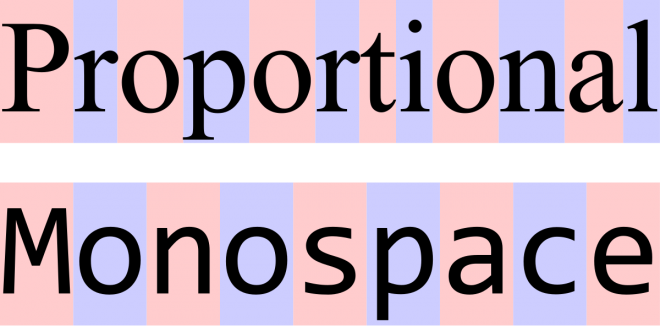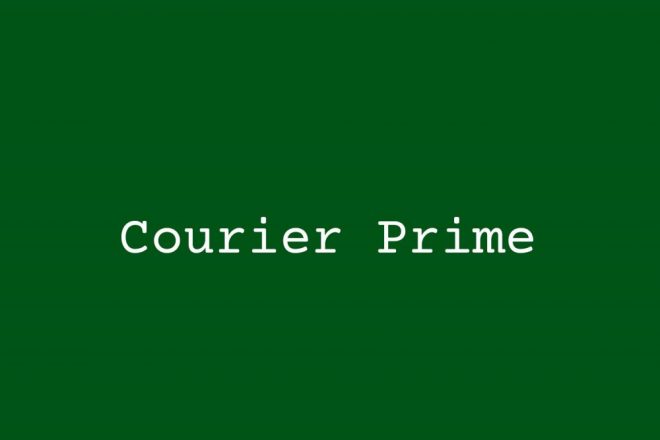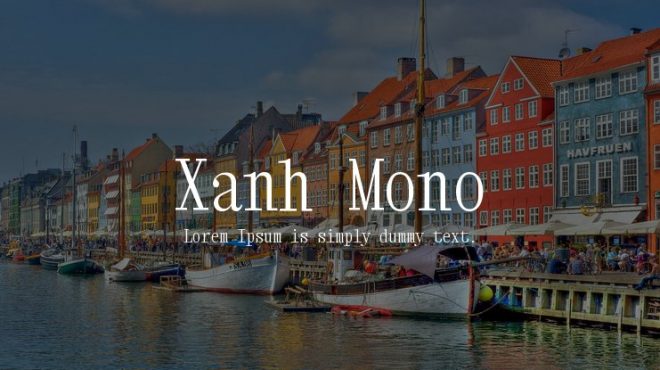
8 Best Monospaced Fonts for Designers in 2022
Graphic design is the foundation of any business in 2022. With its help, the user forms a general idea of the brand. That is why designers are increasingly serious about choosing each element of their design. Today we will discuss the importance of interesting typography.
The popularity and availability of many fonts have made them unattractive. There are many similar design solutions on the Internet that no longer catch users’ attention. But there is always a way out. Font bundles are one of the options for creating an original design. They are very stylish and minimalist—everything we love in design.
In this article, we will talk about the l8 best-monospaced fonts for your designs in 2022 and why you should consider using them.
What is a Monospaced Font?
Monospaced fonts are classic typefaces that were designed to meet the technical standards of typewriters. They differ from the usual proportional ones in the identical distance between the signs.
Here you can see the difference between these two types:
Monospaced fonts were very popular in the era of typewriters and the beginning of the computer age because they fully met the requirements of graphics and mechanics. Nowadays, most people use proportional fonts, but today we will prove why you should pay attention to the monospace variant.
Why Use a Monospaced Font?
Proportional fonts may be considered more beautiful and readable but it doesn’t stop designers from using monospaced ones. There are a couple of cases where these fonts could be a great way of creative expression. Let’s see why.
- They are perfect for recreating typewriter text. If you want to create a more “live” design, then imitating the typewriter font will do just right.
- They look simple. Monospaced fonts will never overload the design so they are ideal for minimalist work.
- They have a soul. These fonts carry history and a nostalgic vibe. With their help, you can easily add new emotions to your design.
Best Monospaced Fonts
We have reviewed several resources with monospaced fonts and are ready to show our top picks.
1. Petrichor
Let’s start our list of monospaced fonts with a font that can be easily applied to create accent headers. It combines both very sharp corners and many roundings. Unlike most monospaced fonts, Petrichor does not look as if it had just been in an old book. Feel free to use this font for any theme.
2. MAVERIX
We move on to the next. MAVERIX is very active and independent, so it can be used to create a logo. This font is definitely one of the most stylish and modern in our selection. It is not one of the boring Windows monospaced fonts that you can see everywhere.
The main rule of working with MAVERIX is to not overdo it. It exists in many variations, so it will be easy for you to find something to combine with the bold version.
3. Jubilation
This monospaced font is less serious than the previous ones. It is more round and friendly, so it is interpreted as fun and playful. It is ideal for branding, in which the main idea is a holiday, pleasure, or entertainment.
4. Curiosity
Another interesting alternative among the classic monospaced fonts. It looks like some of the characters are handwritten, which makes it close to life. This option will successfully dilute the most boring design, attract attention, and interest the user.
5. Share Tech Mono
This font is suitable for technical topics. Share Tech Mono does not look like a regular typewriter font, so it is a great choice for modern designs. It looks more like a message from the future than a product of the past.
This monospaced font is actively used by IT companies and services related to digital services.
6. Courier Prime
We have not forgotten about the classics! This is what most people imagine when they think of monospaced fonts. Clear, understandable, and available in several variations, it is perfect for minimalist designs. However, it is better not to convey very important information with Courier Prime, as it can get lost in the background of more active elements of the composition.
7. Xanh Mono
We couldn’t miss this stylish monospaced font. It feels like a 19th-century novel and the French countryside. Using it you will enhance the romance and lightness of the design, so do not oversaturate with other elements with a similar mood. Balance Xanh Mono with something masculine and get an interesting design.
8. Major Mono Display
This is the last font on our list, yet one of the most original we have found. It looks very stylish and will be a great addition to any type of design. You can easily use this monospaced font to bring some airiness into your creative designs.
Final Thoughts
We have shown you a list of our best picks for monospaced fonts, which became relevant again in 2022. Don’t be afraid to use and combine them with the usual fonts. Such experiments guarantee only a great result in the form of suitable, interesting designs. Also you can find a lot of free monospaced fonts to try them in the process. We hope this list helps you choose the fonts for your next project.